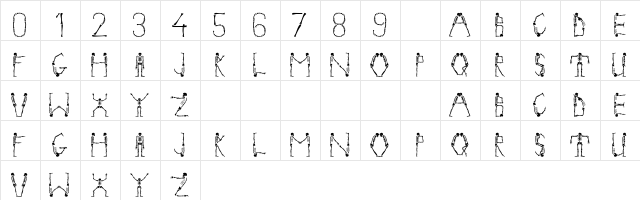
101! Skeletal RemainZ Regular
Design Context for 101! Skeletal RemainZ Typeface
101! Skeletal RemainZ is a composed and adaptable typeface that performs quietly and consistently across a wide range of design contexts.